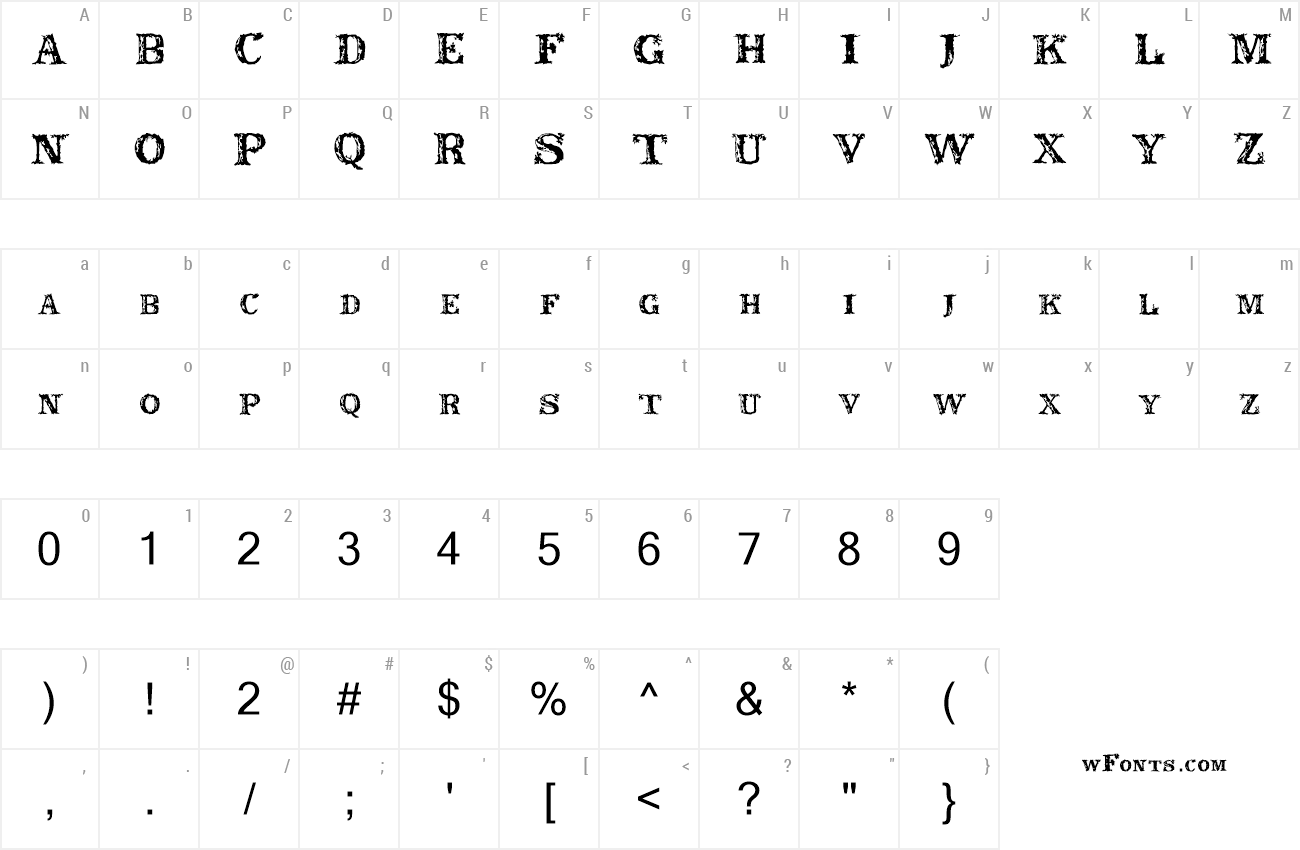
Cool Rustic Google Fonts Ideas. Web the 40 best google fonts—a curated collection for 2022 · typewolf the 40 best free fonts available on google fonts last updated on february 22, 2022 these. Web rustic fonts and illustration collection this is a set of handwritten rustic resources for designing awesome rustic print and web templates.
Web Rustic Fonts And Illustration Collection This Is A Set Of Handwritten Rustic Resources For Designing Awesome Rustic Print And Web Templates.
Web the rustic font is ideal to use for retro aesthetic projects, where it perfectly blends vintage typography and american country styling. Web looking for farmhouse rustic fonts? To give these fonts their.
Web burford rustic by kimmy design. I’ve created a list of the 10 best google fonts for logos that not only look good but also professional. Rye's bold attention getting shapes are useful for advertising.
It Is Available In Vintage Styles To.